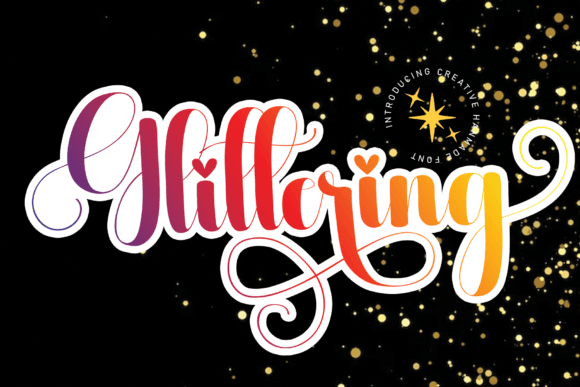
Welcome to the world of enchantment, where artistry and creativity converge to introduce you to Glittering Font - an ethereal script handcrafted by our very own Roronoa zoro.S.P.D. As you explore this magnificent font, let your senses be captivated by its exquisite elegance, reminiscent of a bygone era.
Picture this; an enchanting rustic wedding, where the air is alive with romance and enchantment. With Glittering Font, you can effortlessly weave a tapestry of elegance and charm, crafting heartfelt invitations, enchanting signage, and captivating menus that capture the essence of your love story. The delicate strokes and graceful curves of each letter intertwine seamlessly, adding a touch of whimsy and enchantment to your every word.
Unleash your creativity as you design ethereal wedding stationery that reflects the depth of your affection. From save-the-dates that ignite anticipation to thank-you cards that convey your heartfelt gratitude, Glittering Font will transform your words into an artistic masterpiece. With this exquisite font at your fingertips, you'll create cherished memories that will last a lifetime, forever etched in the hearts of those who witness your love's journey.
But the magic of Glittering Font extends far beyond the realm of rustic weddings. Allow it to ignite a creative spark as you design captivating social media posts, mesmerizing logos, and eye-catching branding materials. Its extraordinary versatility knows no bounds, adapting effortlessly to a multitude of projects, each infused with its unique charm and unparalleled elegance.
Join the chorus of creative visionaries who have embraced the allure of Glittering Font. Let your imagination soar as you create enchanting designs that captivate and inspire. Whether it's a whimsical greeting card for a special occasion, a personalized gift adorned with your heartfelt message, or a captivating poster that commands attention, Glittering Font will elevate your creations to new heights of beauty and grace.
So, embark on a journey of artistic exploration as you discover the limitless possibilities of Glittering Font. Let your designs shimmer with opulence, radiate with enchantment, and enchant the hearts of all who behold them. Make Glittering Font your font of choice and unlock a world of creativity, where the ordinary transforms into the extraordinary.